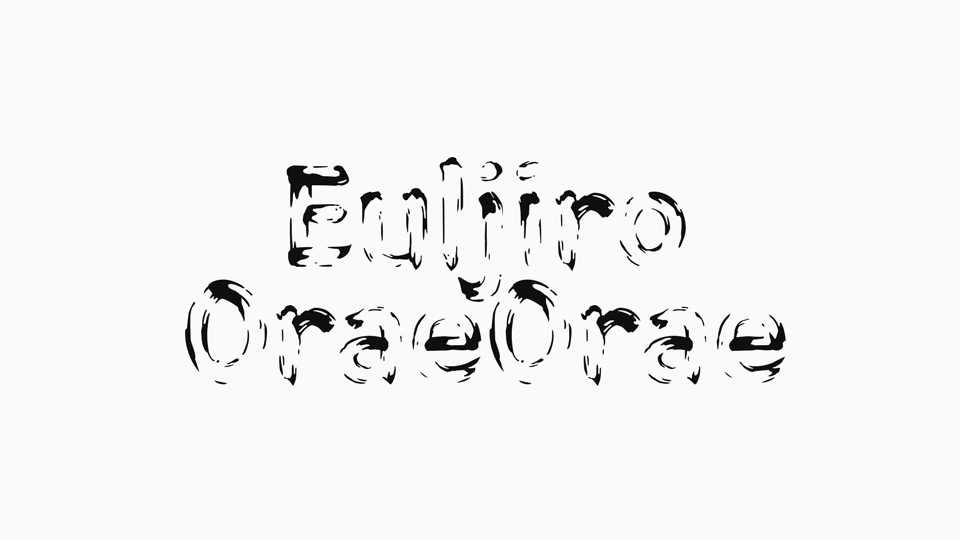
Download Euljiro OraeOrae font, a typeface featuring how Euljiro would look after years of exposure to the elements. The letters appear indecipherable at first, but look beyond the signs of wear and tear and you’ll easily make out their message.
Designer: Woowa Brothers